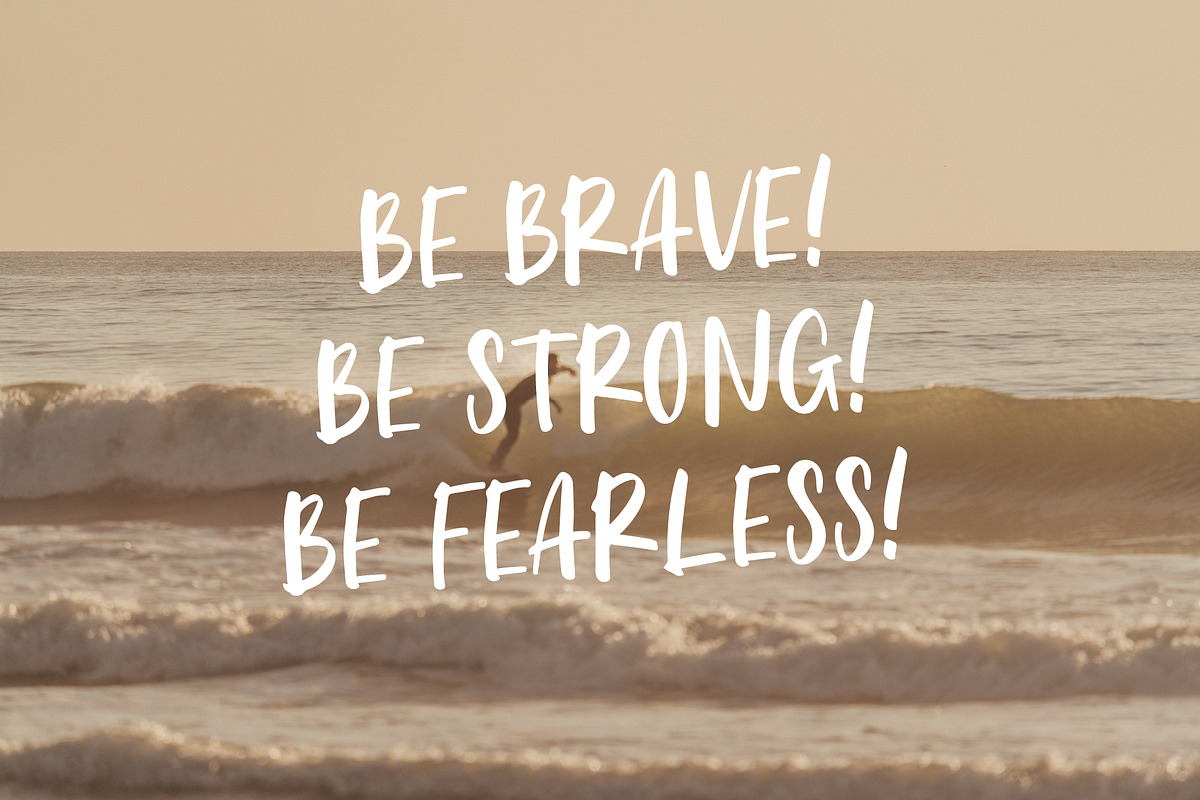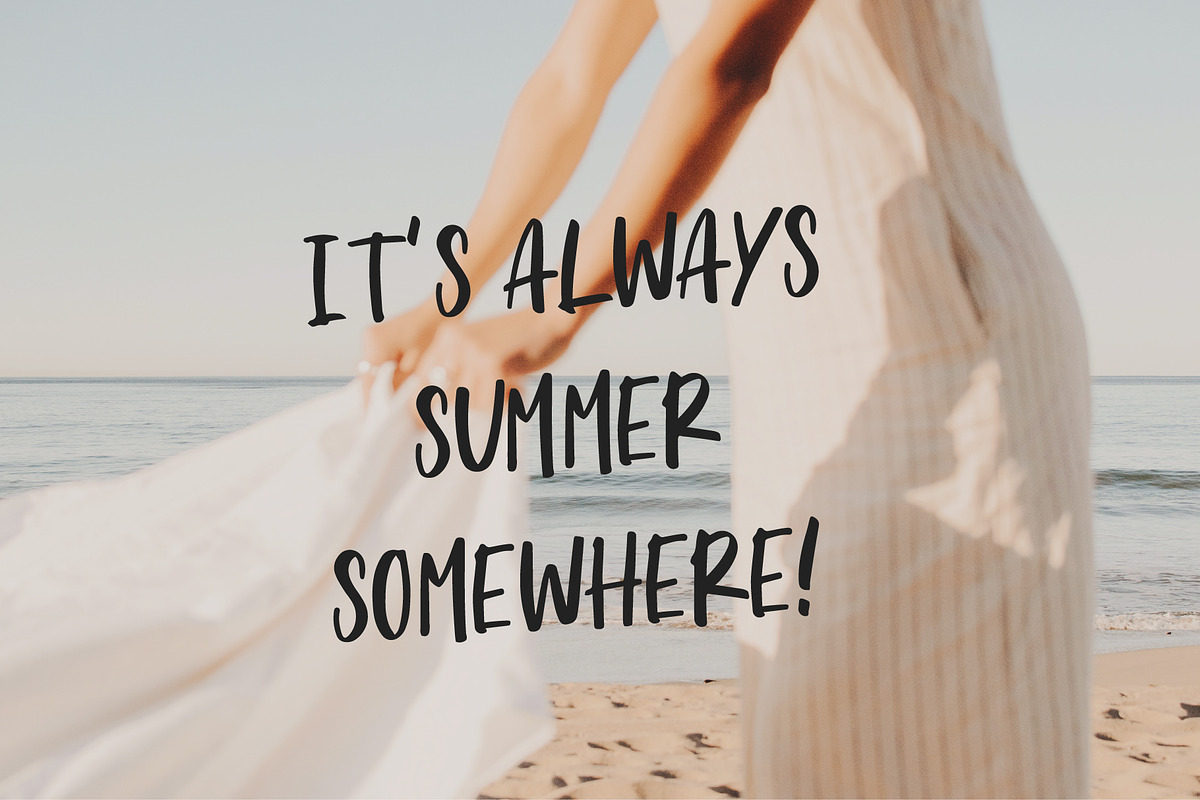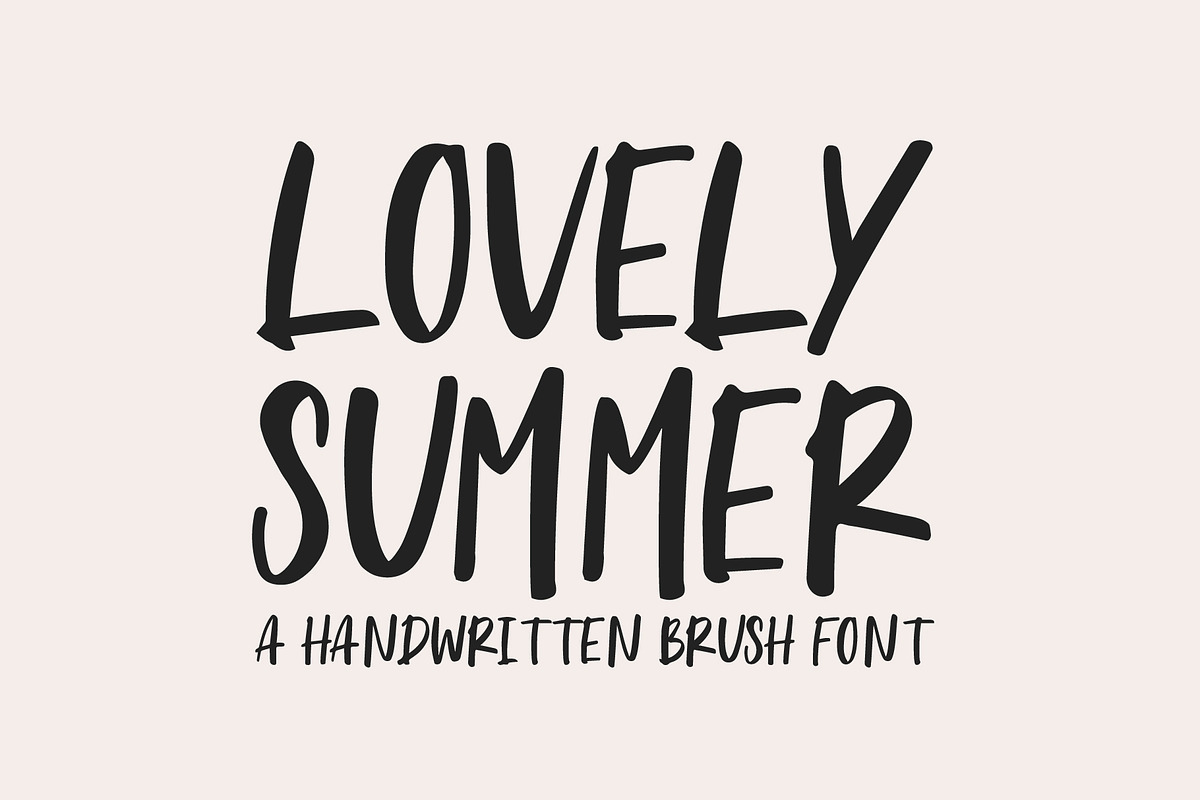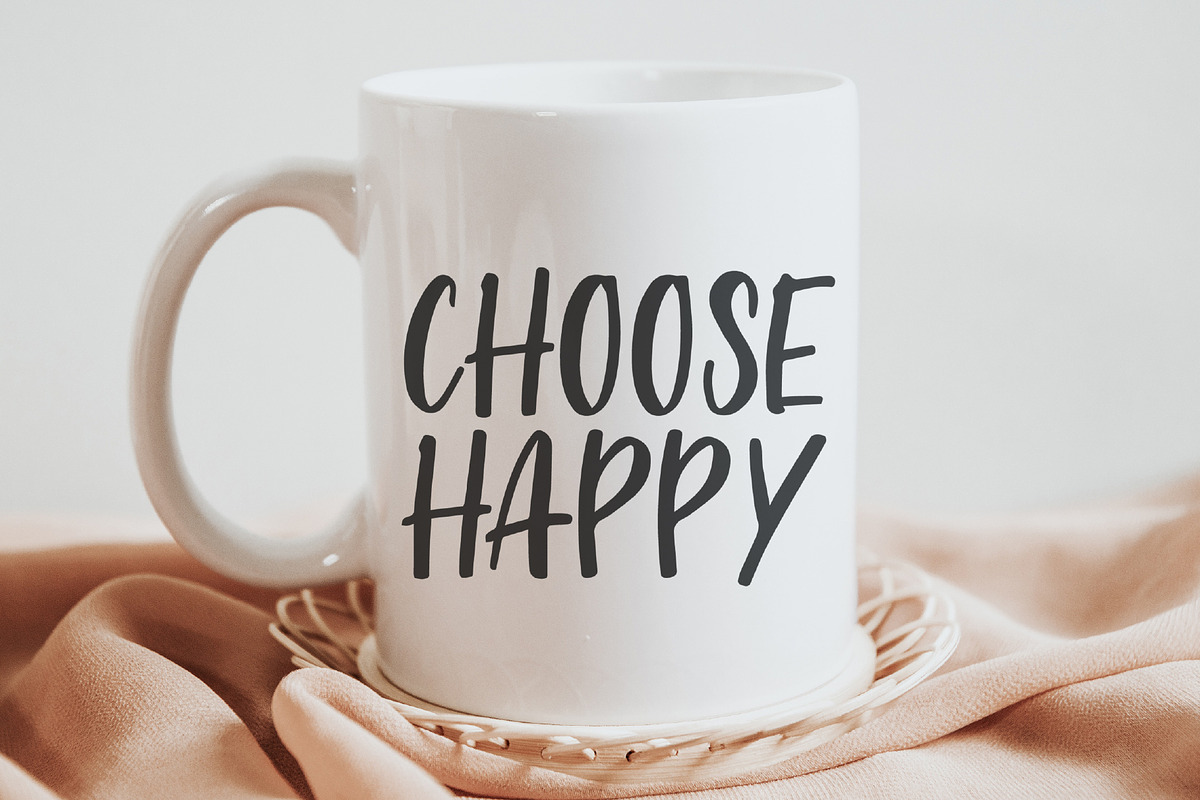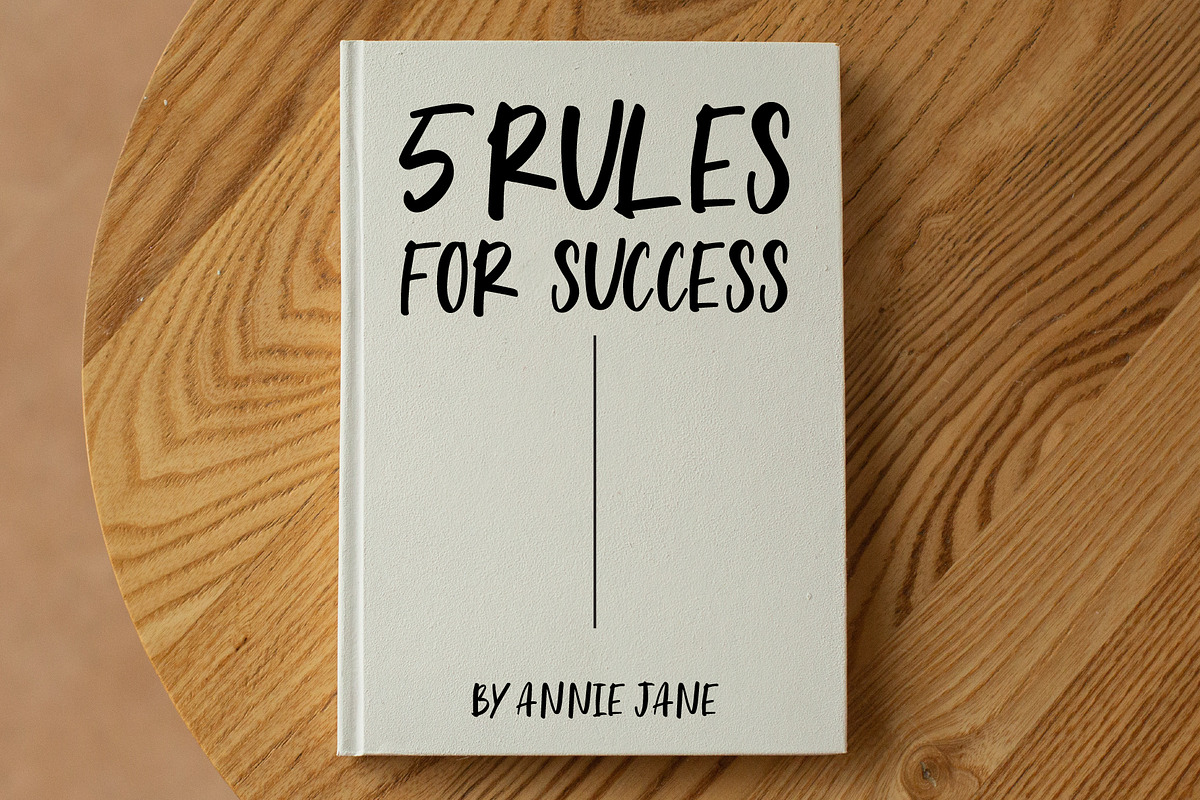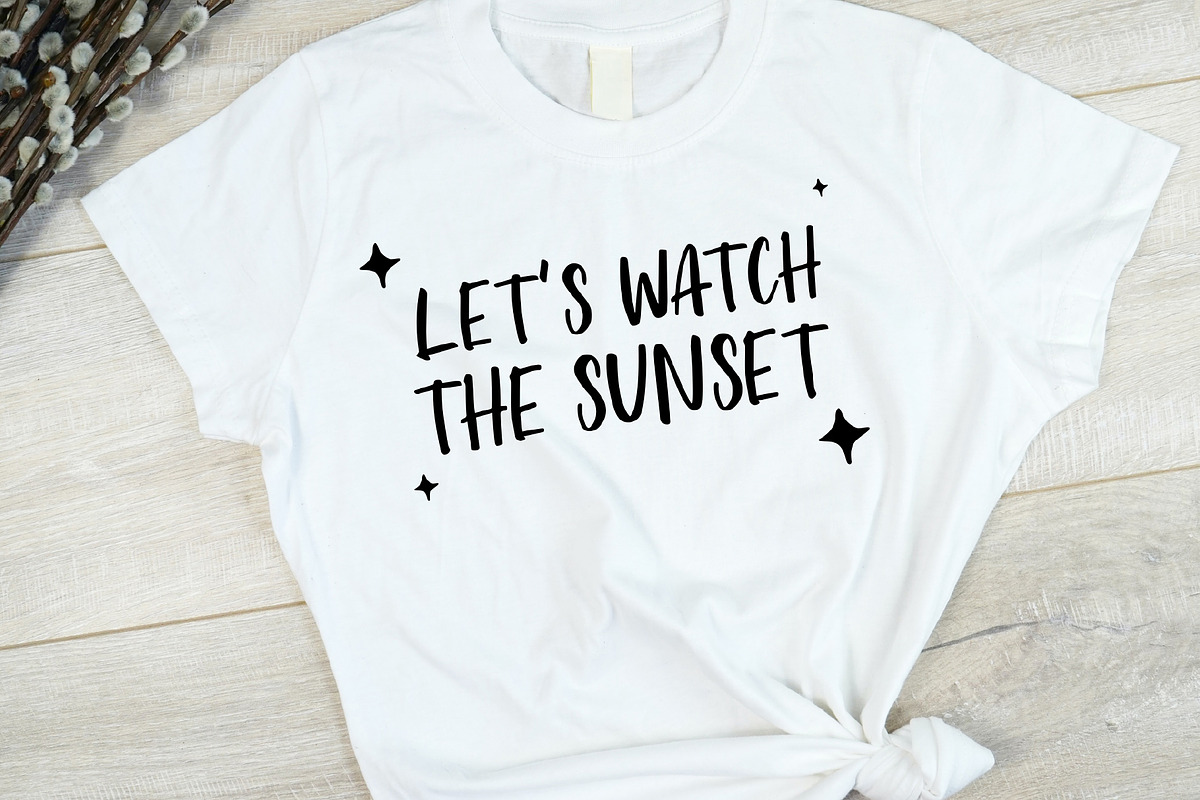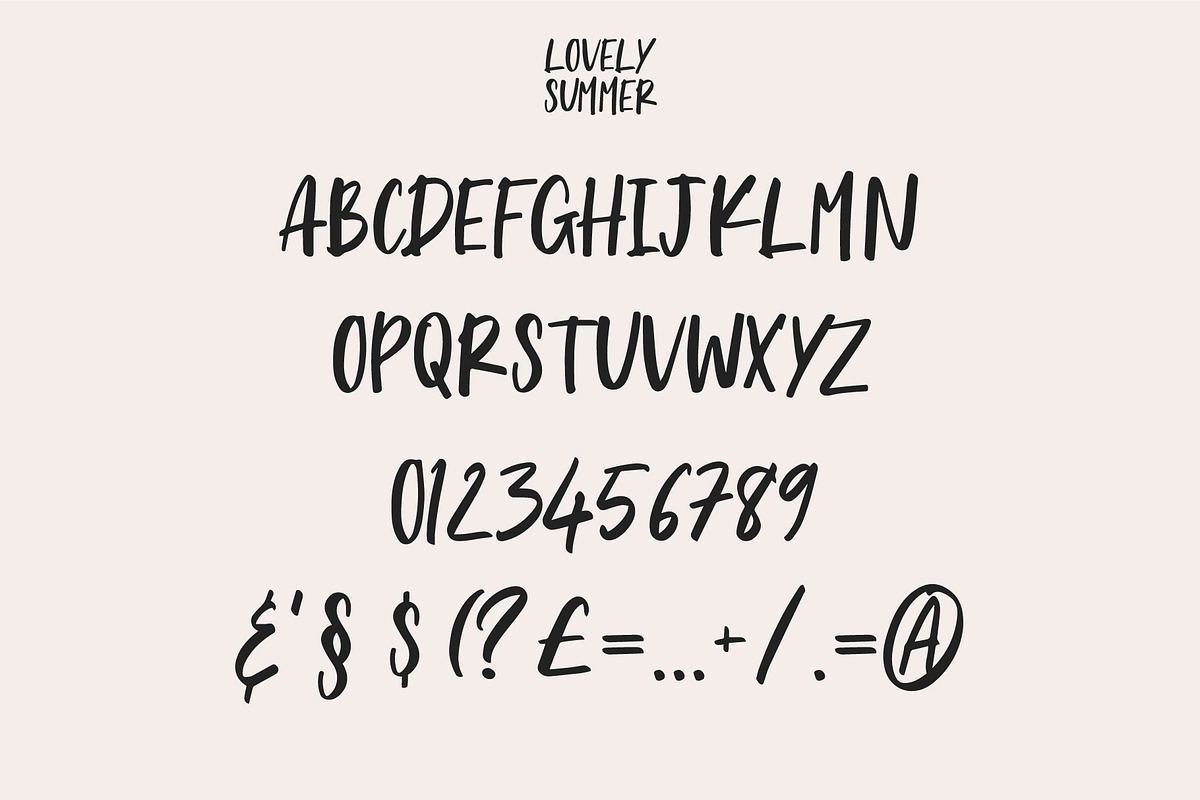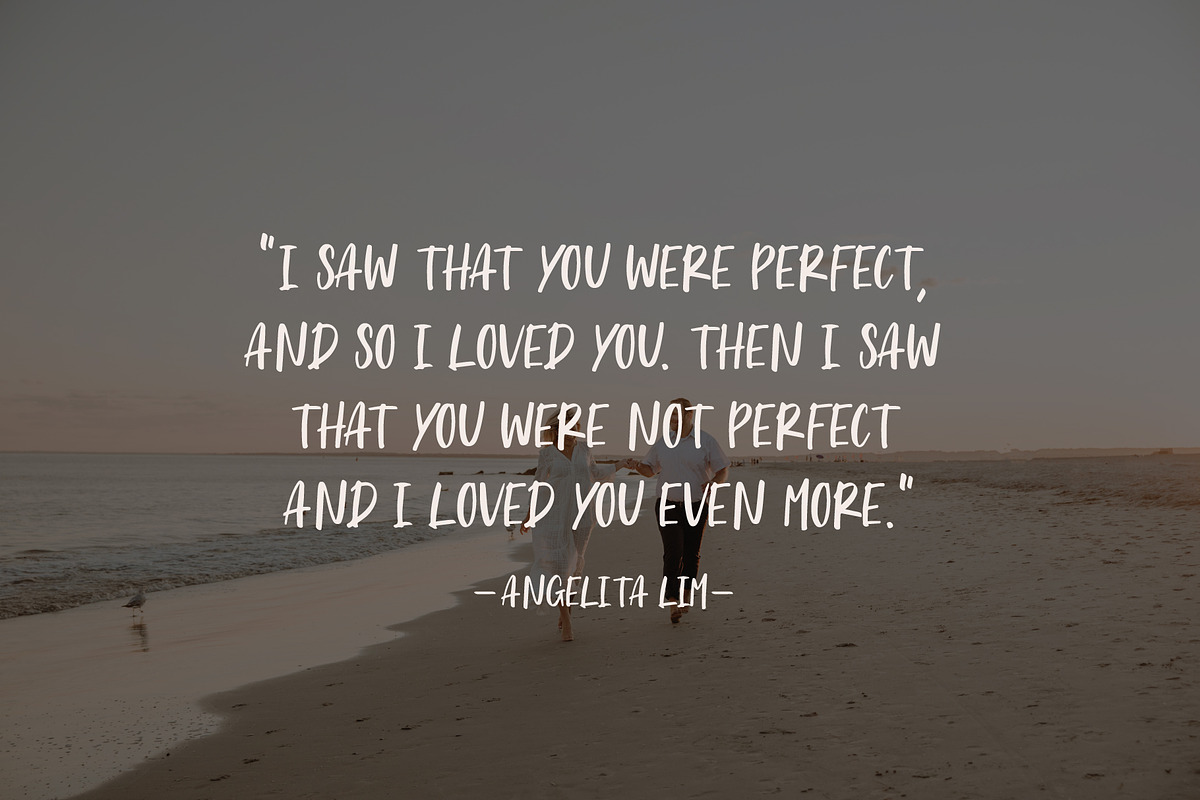
Lovely Summer A Brush Font
Introducing Lovely Summer a cute handwritten brush font!
This font is absolutely adorable and perfect for adding a touch of charm and playfulness to your designs. Handcrafted with love and attention to detail, each letter in this font has been carefully brushed to create a whimsical and cute aesthetic.
Its gentle and fluid strokes bring a sense of joy and happiness to any project. Whether you're designing greeting cards, invitations, or creating delightful social media graphics, this cute handwritten brush Font is sure to captivate hearts and bring a smile to everyone who sees it. Get ready to infuse your designs with cuteness overload!